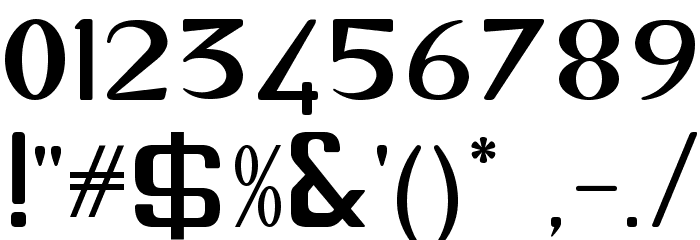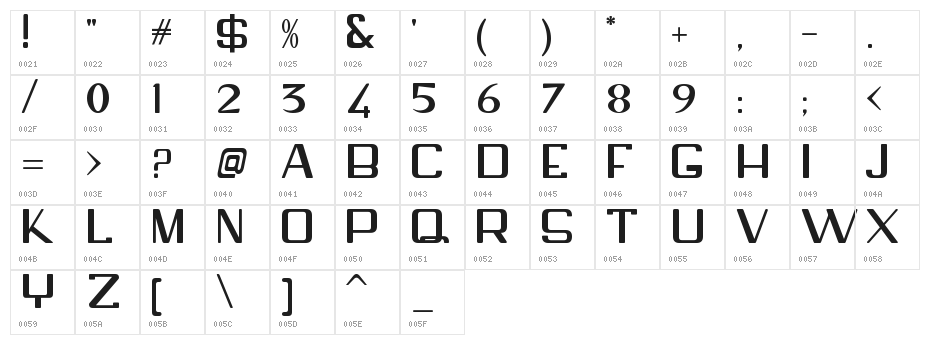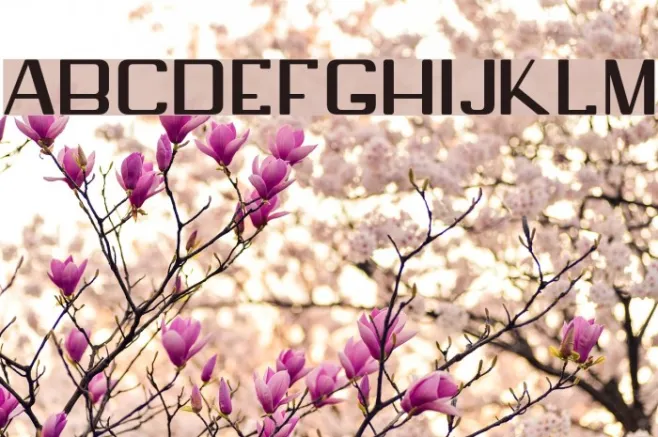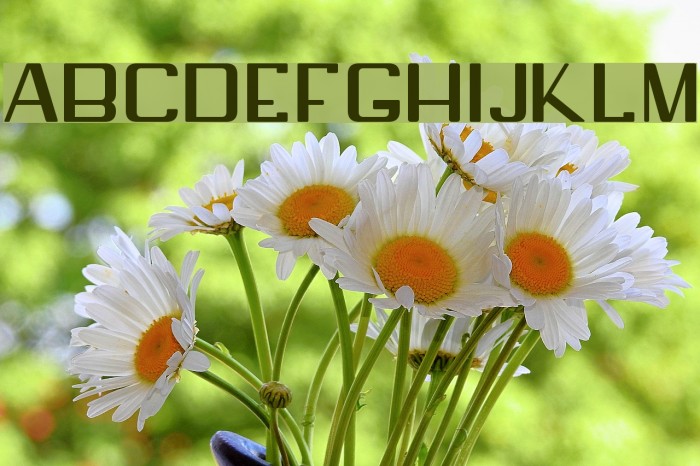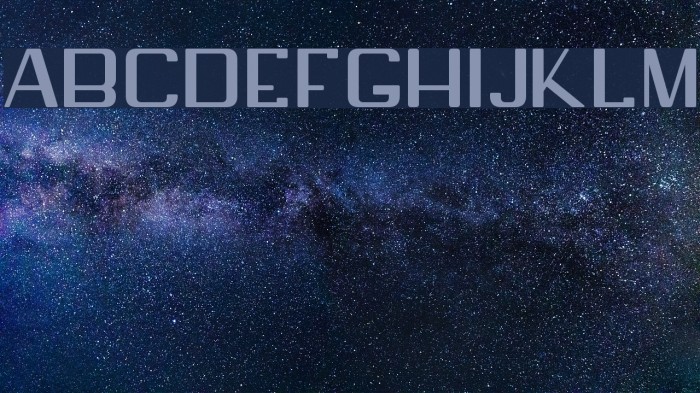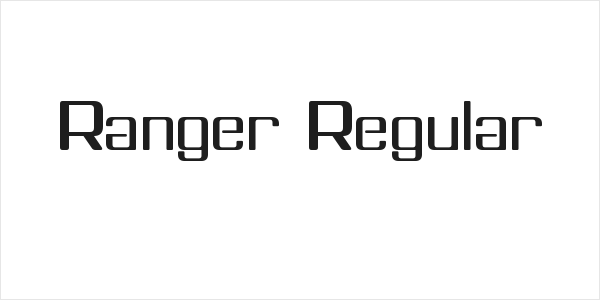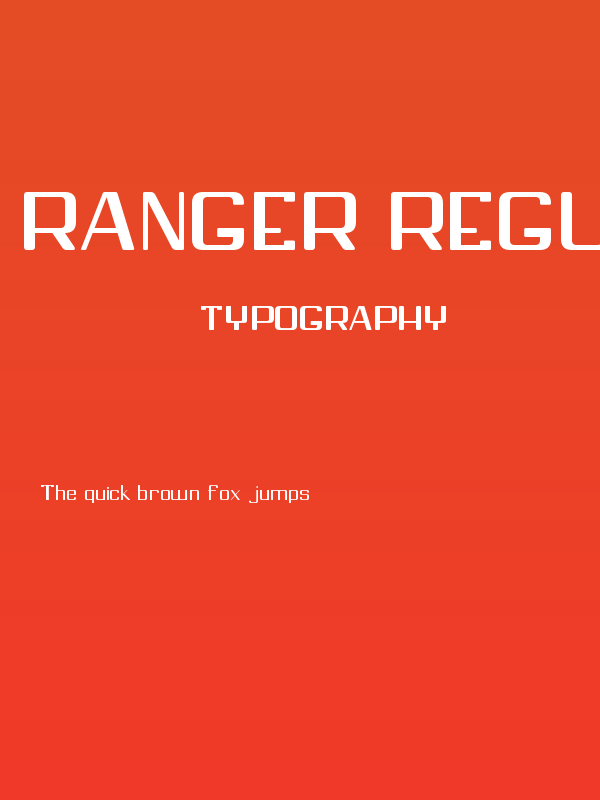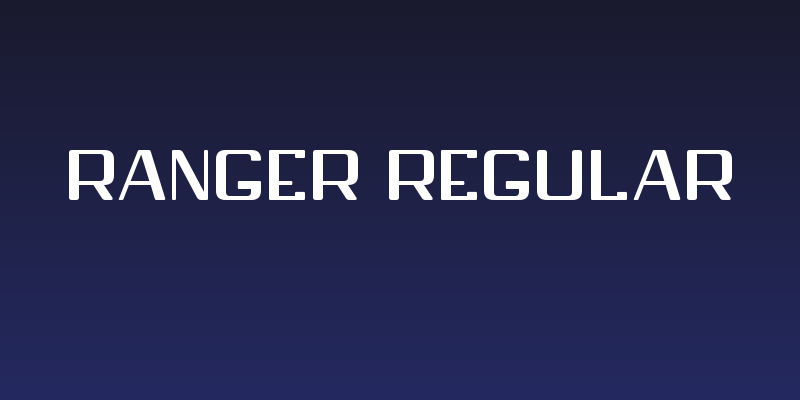
Ranger Regular Font
Ranger Regular Description
This font features a modern and sleek design with a geometric structure. The uppercase letters are bold and angular, while the lowercase letters maintain a consistent style with slightly rounded edges, providing a harmonious balance. The numerals are distinct and easy to read, with a uniform height that aligns well with the overall aesthetic. Special characters are crafted with precision, maintaining the font's clean and contemporary look. The font's design is versatile, making it suitable for various applications where a modern and professional appearance is desired.
| Proposed Projects | Ideal for branding, advertising, digital interfaces, and editorial design. |